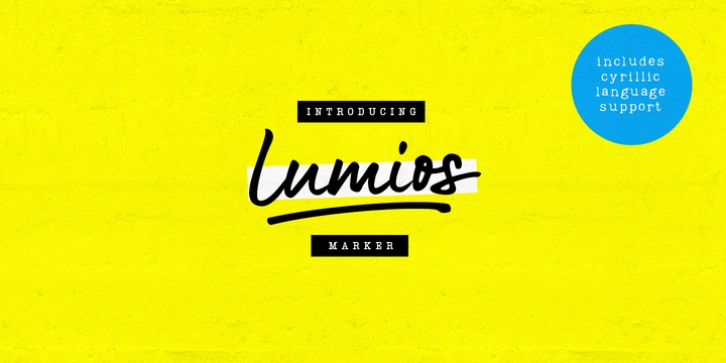
Lumios is a freehand casual marker script that was created using Pilot Sign Pen. It has both extended Latin and basic Cyrillic support that is enhanced with oodles of ligatures (latin as well as cyrillic) and alternates. As a compliment to the script I also created Lumios Design Elements font that can be useful in brand design, greeting cards design etc. Both fonts were carefully traced by hand and have clean edges, hence they are safe to use in all graphic design software (including but not limited to Adobe Suite, Silhouette and Cricut Design, Affinity Designer etc) as well as on websites. The script is fully unicode mapped. To use it in Silhouette and similar applications that do not support OpenType features (yet), you may need to use your default Mac/Windows software such as Font Book or Character Map to select alternates you need.